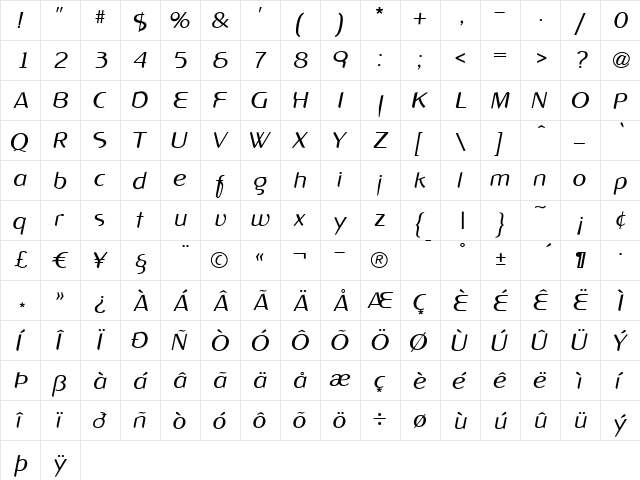
XYPERFORMULAIC Regular
Design Context for XYPERFORMULAIC Typeface
XYPERFORMULAIC is a composed and adaptable typeface that performs quietly and consistently across a wide range of design contexts.